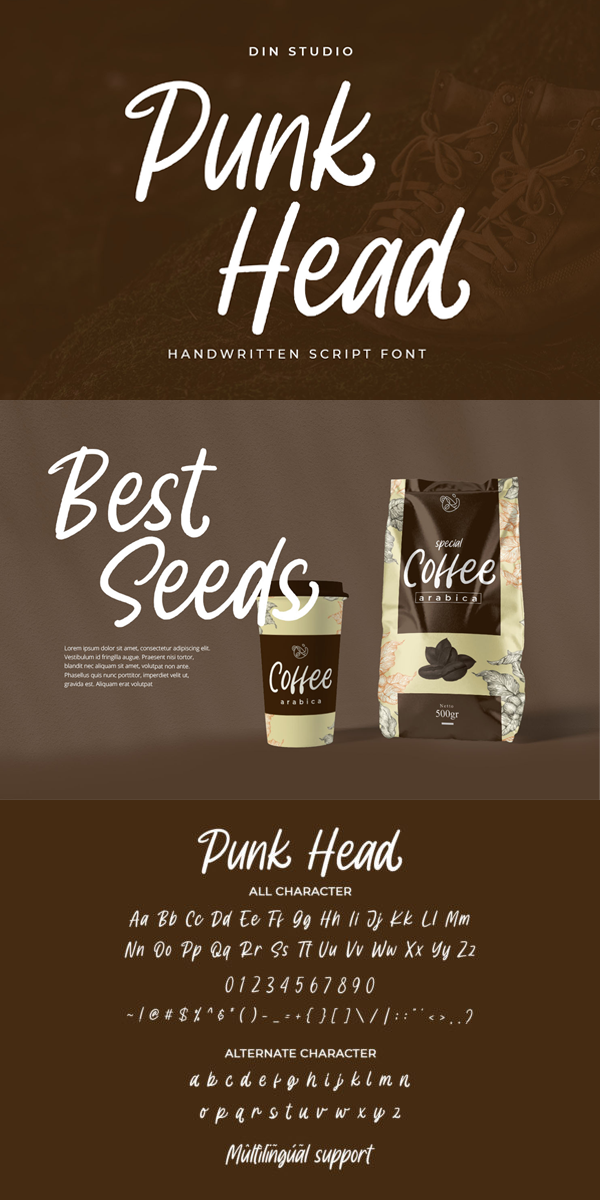
Punk Head Font
About Punk Head
Punk Head is a handwritten font. With a natural and beautiful handwritten style, it brings a classy and chic typeface. Chalk Brush is best used for branding, logotype, and quotes.
– Alternates